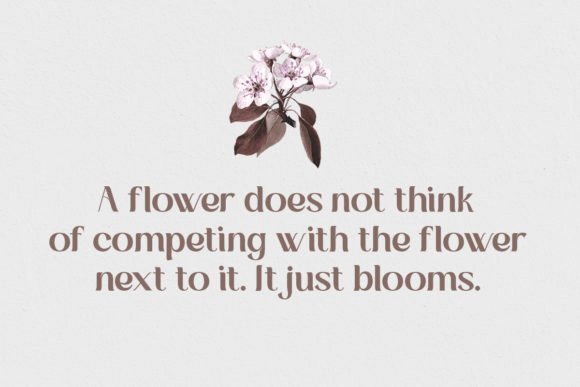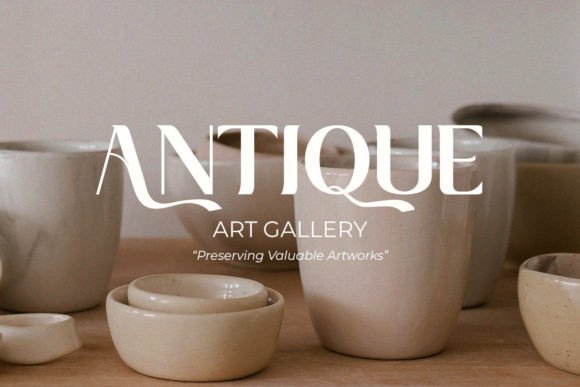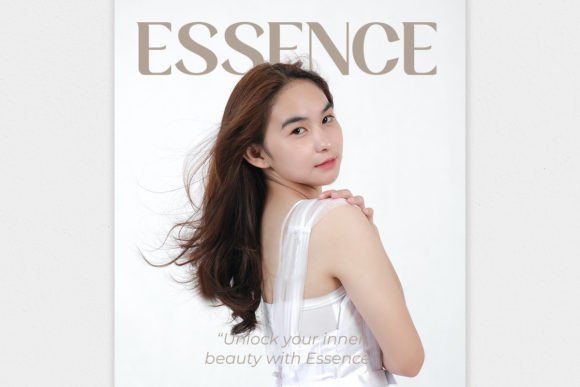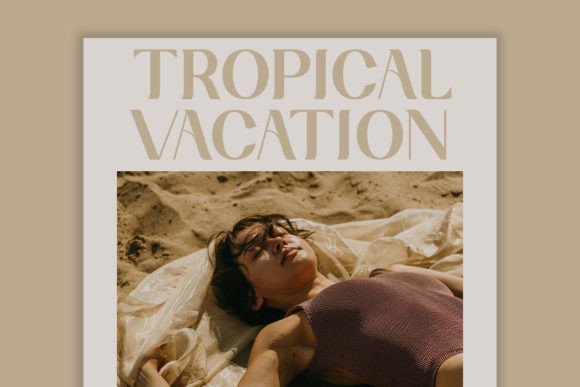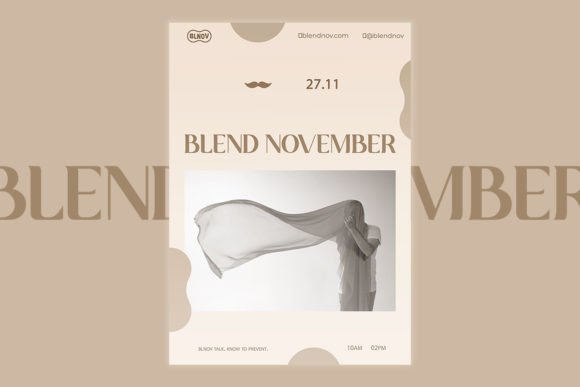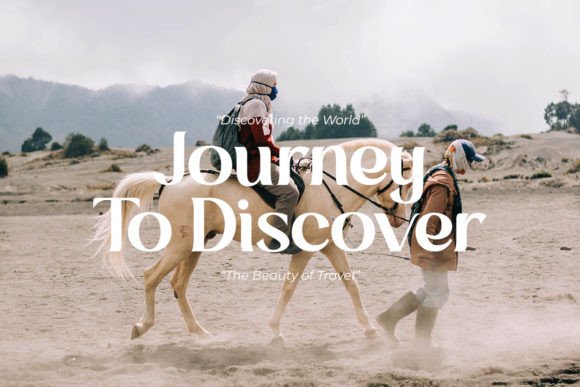
Introducing Grader Font: Elevate Your Designs with Modern Serif Elegance
In the world of typography, a font can make or break the visual appeal of a design. For designers and crafters seeking a modern serif font that exudes elegance and sophistication, look no further than Grader Font. This versatile typeface is perfect for a wide range of applications, from headlines and editorial design to fashion branding, advertising, and more.
What is Grader Font?
Grader Font is a modern serif font designed to bring a touch of class and refinement to any design project. Its sleek lines, balanced proportions, and elegant serifs make it an ideal choice for designers seeking to create visually stunning work. Whether you’re designing for print or digital platforms, Grader Font is sure to impress.
Perfect for Headlines and Editorial Design
Grader Font is particularly well-suited for headlines, where its bold and confident appearance can help grab attention and draw the reader in. Its modern serif design also makes it a great choice for editorial design, adding a touch of sophistication to articles, features, and other written content. For magazine designers, Grader Font offers a wide range of possibilities, from cover titles to interior layouts.
Fashion and Cosmetic Brands
In the world of fashion and cosmetics, visual appeal is everything. Grader Font offers a stylish and modern solution for brands seeking to elevate their visual identity. Its elegant design and refined appearance make it perfect for use in logos, advertisements, and promotional materials. Whether you’re designing for a luxury fashion brand or a high-end cosmetics company, Grader Font is sure to help you create a lasting impression.
Modern Advertising Designs and Invitation Cards
For designers working on modern advertising campaigns, Grader Font offers a versatile and attention-grabbing solution. Its bold and confident appearance makes it perfect for use in print ads, social media graphics, and other promotional materials. Additionally, its elegant design makes it a great choice for invitation cards, where a touch of sophistication and refinement is often required.
Art Quotes, Home Decoration, and Book/Cover Titles
Grader Font’s versatility extends far beyond traditional design applications. Its elegant design makes it perfect for use in art quotes, adding a touch of sophistication and refinement to any room. For home decorators, Grader Font offers a stylish solution for creating beautiful and inspiring quotes. Additionally, its bold and confident appearance makes it a great choice for book and cover titles, helping to make your publication stand out on the shelves.
Special Events and More
Whether you’re designing for a special event, such as a wedding or gala, or simply looking for a modern serif font to add to your toolkit, Grader Font is an excellent choice. Its versatility, elegance, and refined appearance make it perfect for a wide range of applications, from formal events to everyday design projects.
Key Features of Grader Font
- Modern serif font with elegant design and refined appearance
- Perfect for headlines, editorial design, fashion branding, and advertising
- Versatile and attention-grabbing, with a bold and confident appearance
- Suitable for a wide range of applications, from print to digital platforms
- Elegant serifs and balanced proportions for a sophisticated look
In conclusion, Grader Font is a modern serif font that offers a wide range of possibilities for designers and crafters. Its elegant design, refined appearance, and versatility make it perfect for a variety of applications, from headlines and editorial design to fashion branding, advertising, and more. Whether you’re working on a specific project or simply looking to add a new font to your toolkit, Grader Font is an excellent choice.